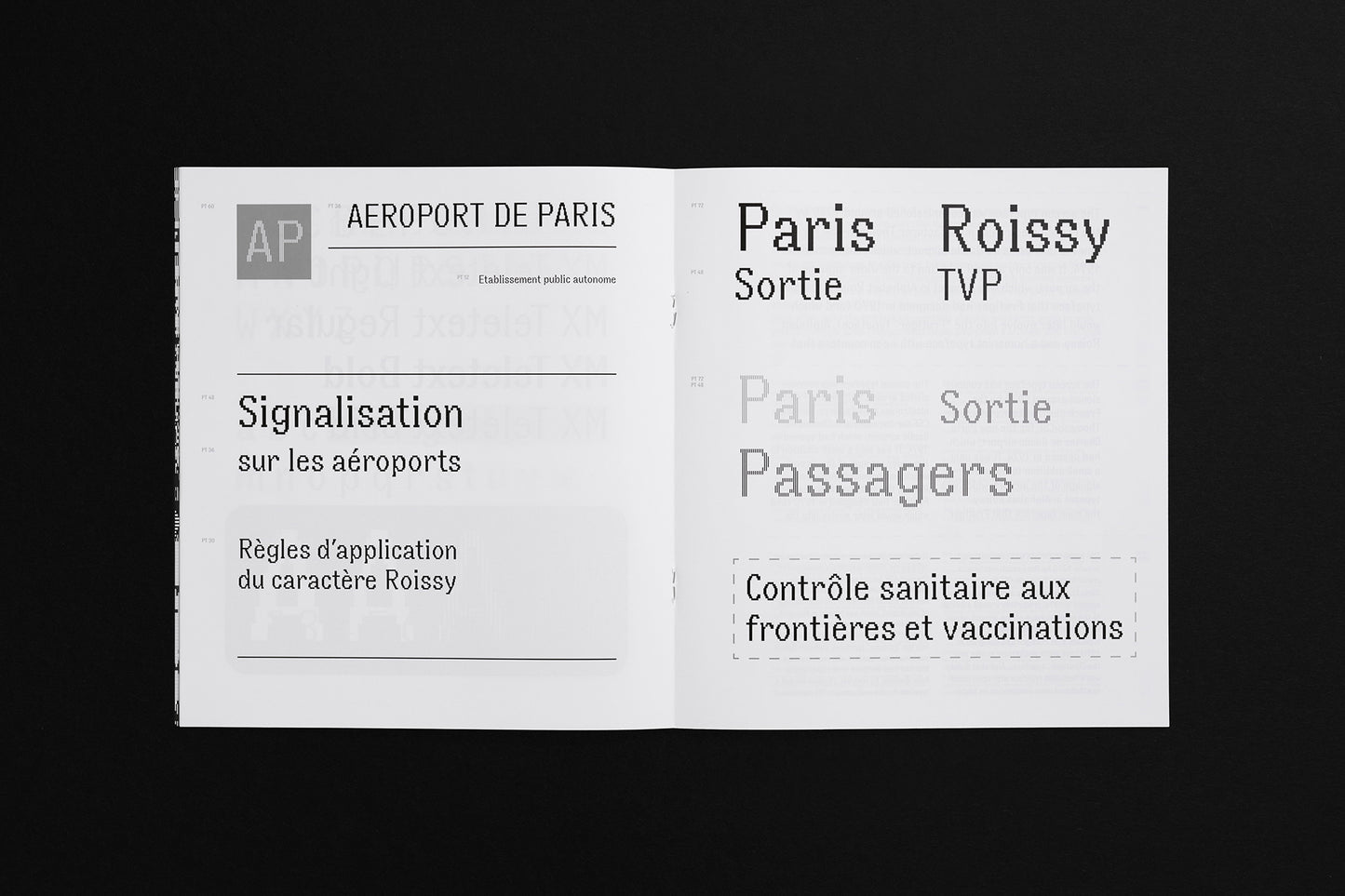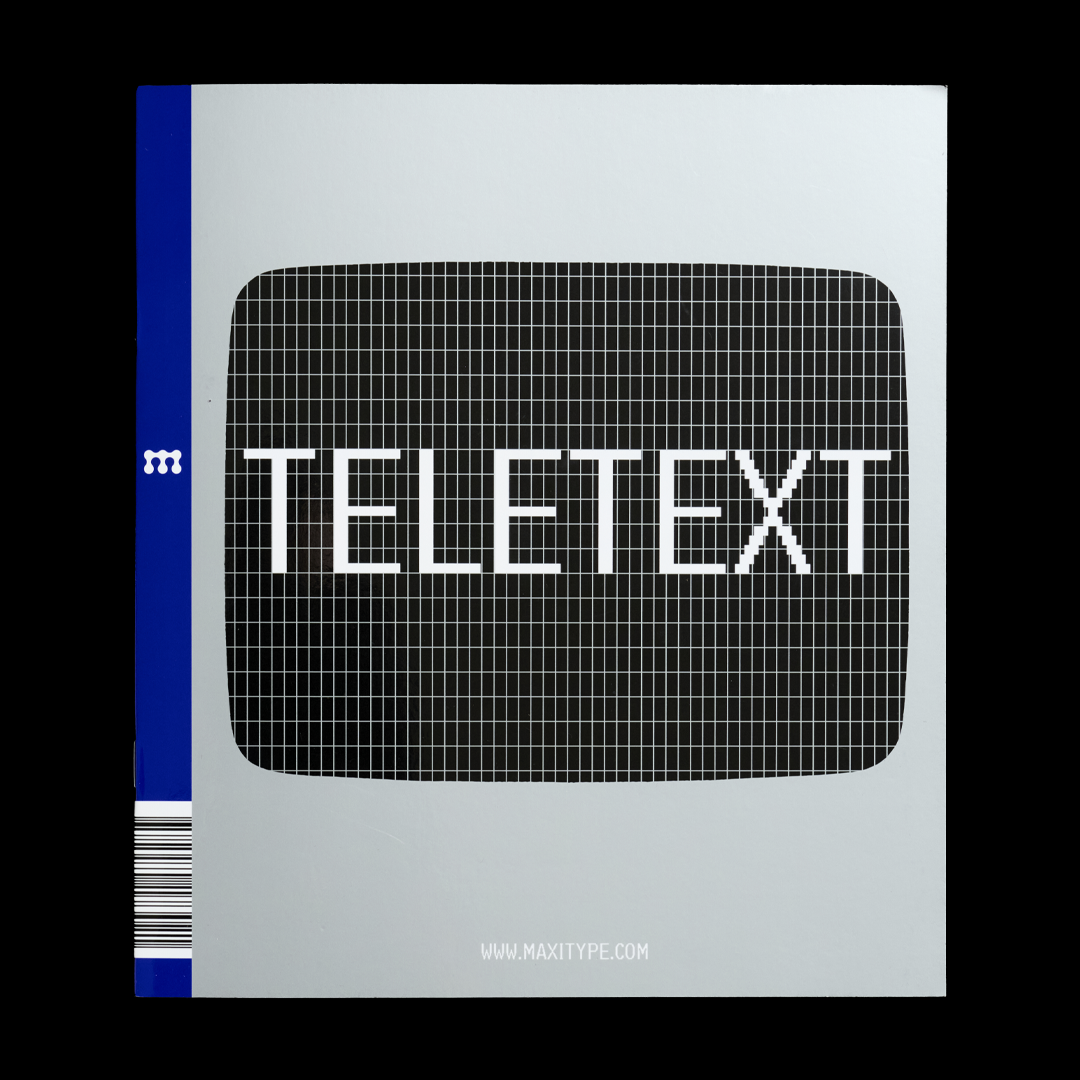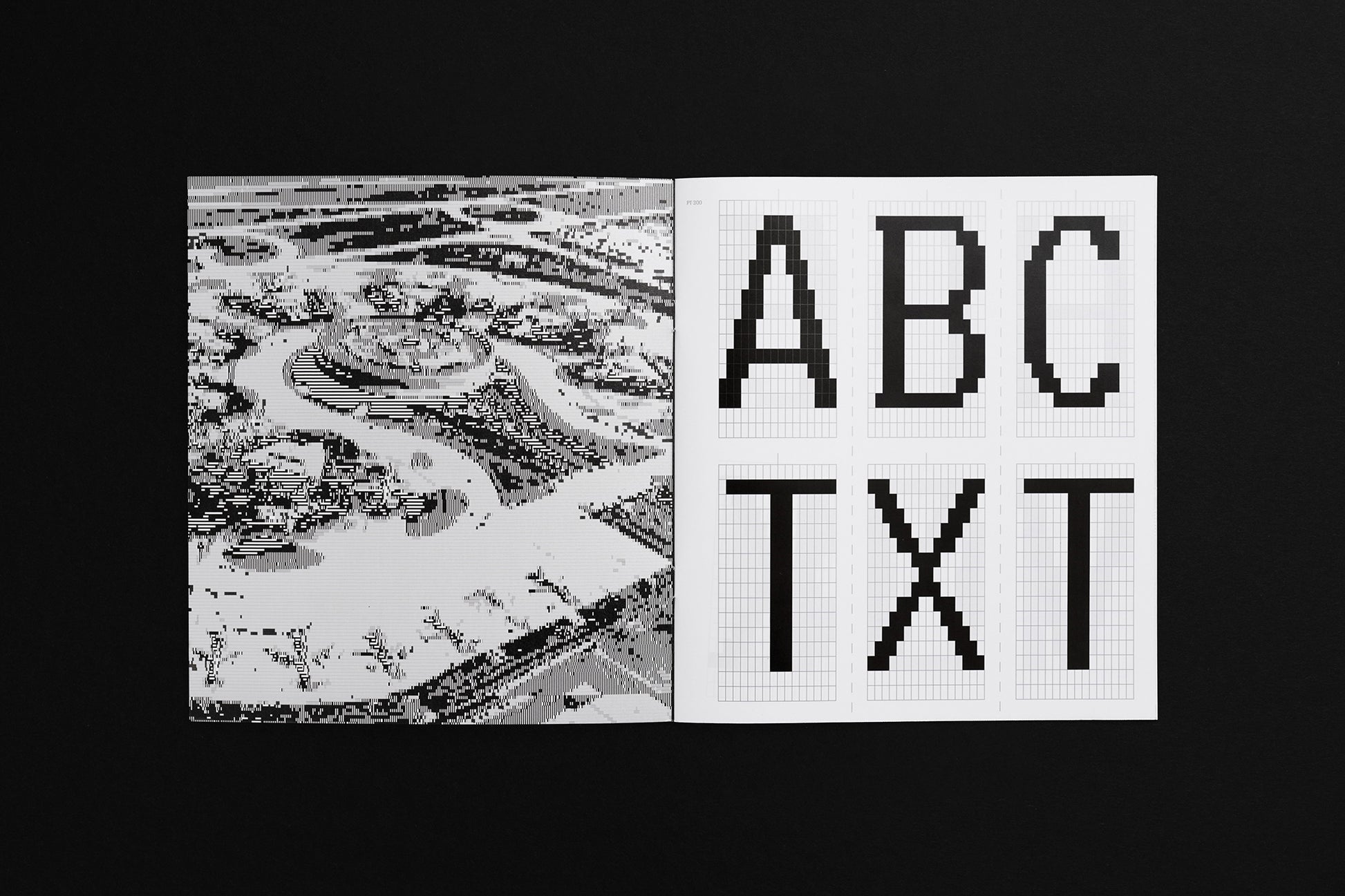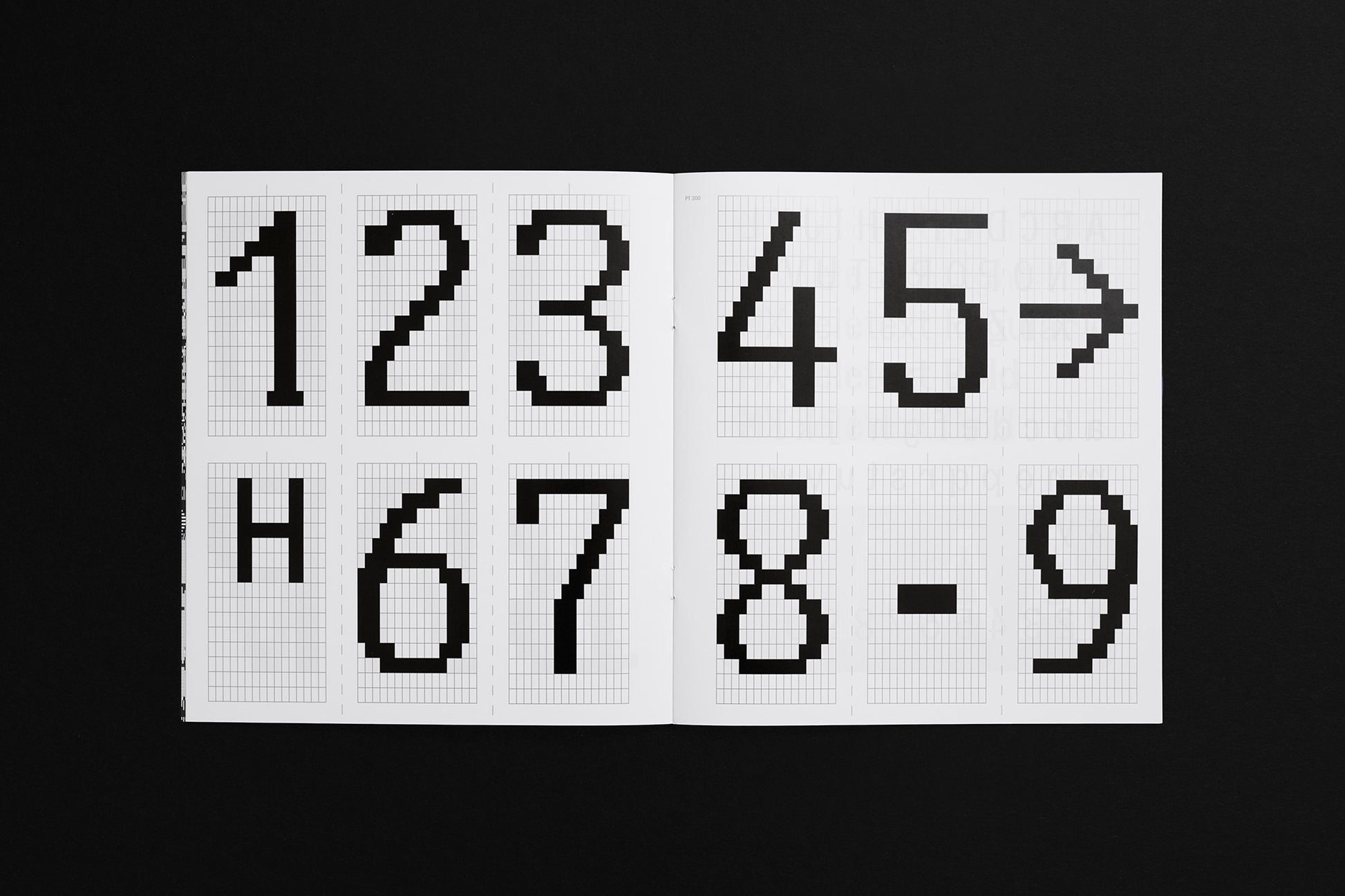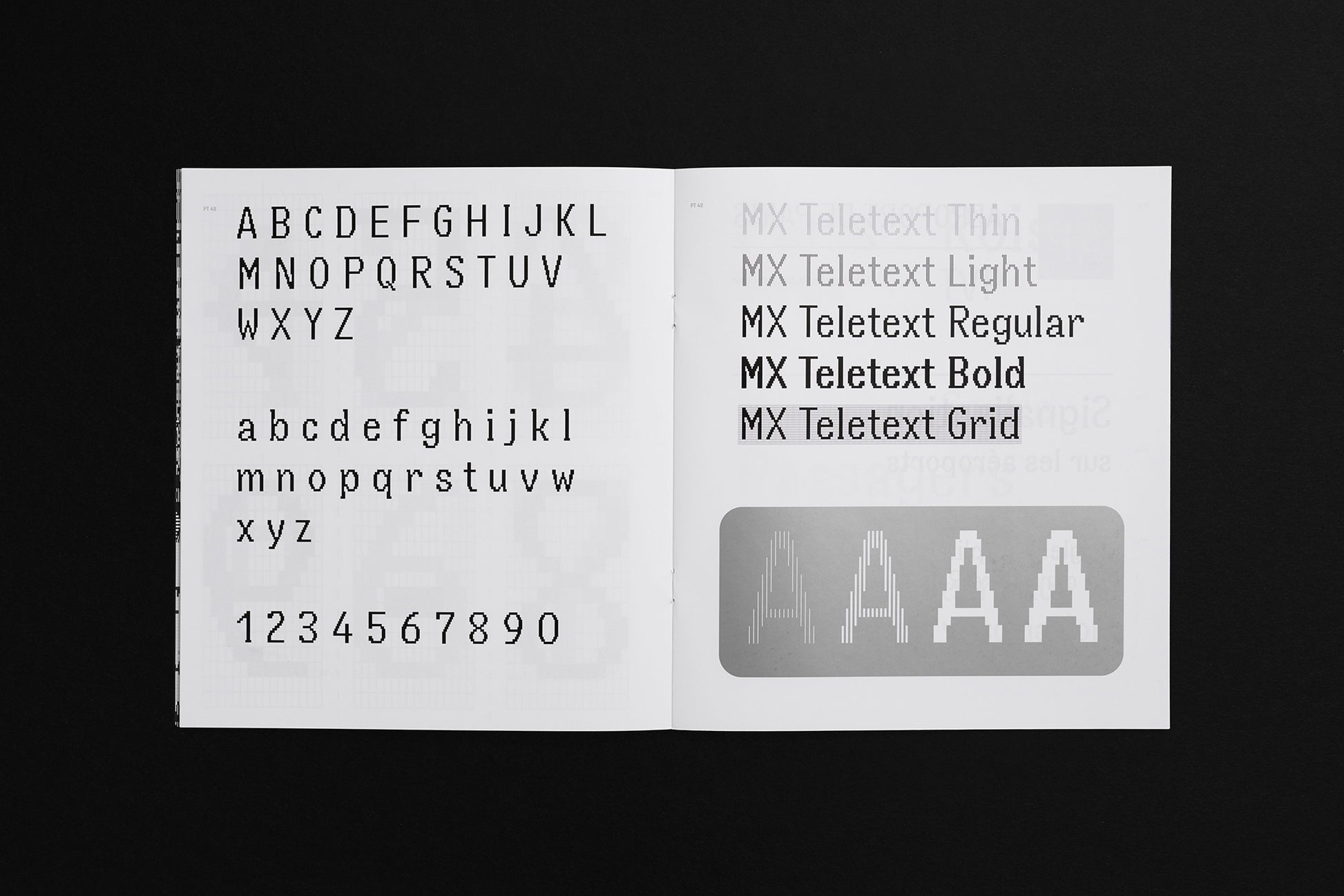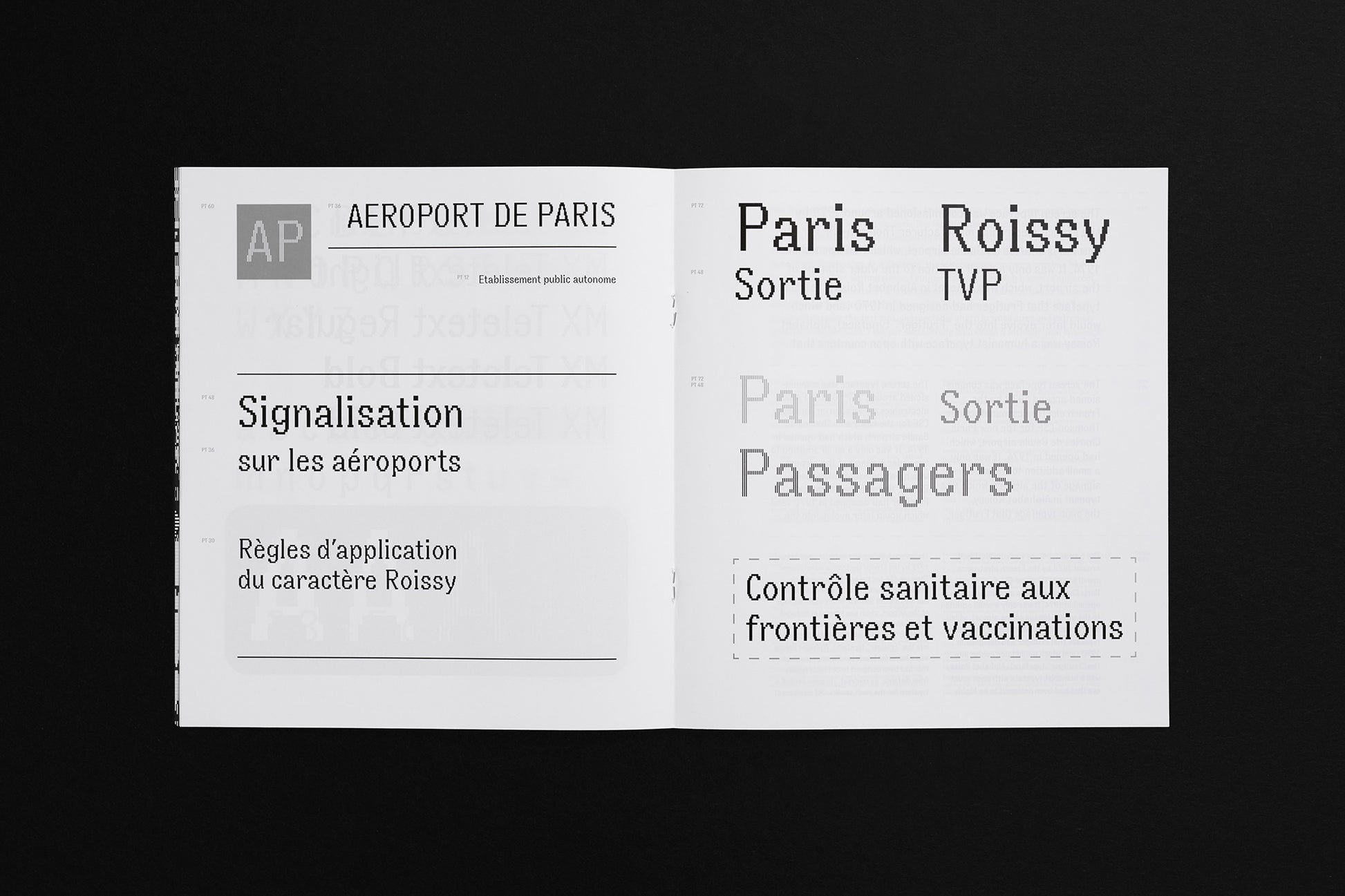
Teletext Type Specimen
Teletext Type Specimen showcases Teletext, a humanist pixel typeface designed by Adrian Frutiger in 1979 and released by Maxitype in 2025.
In collaboration with Museum für Gestaltung Zürich, Graphics Collection